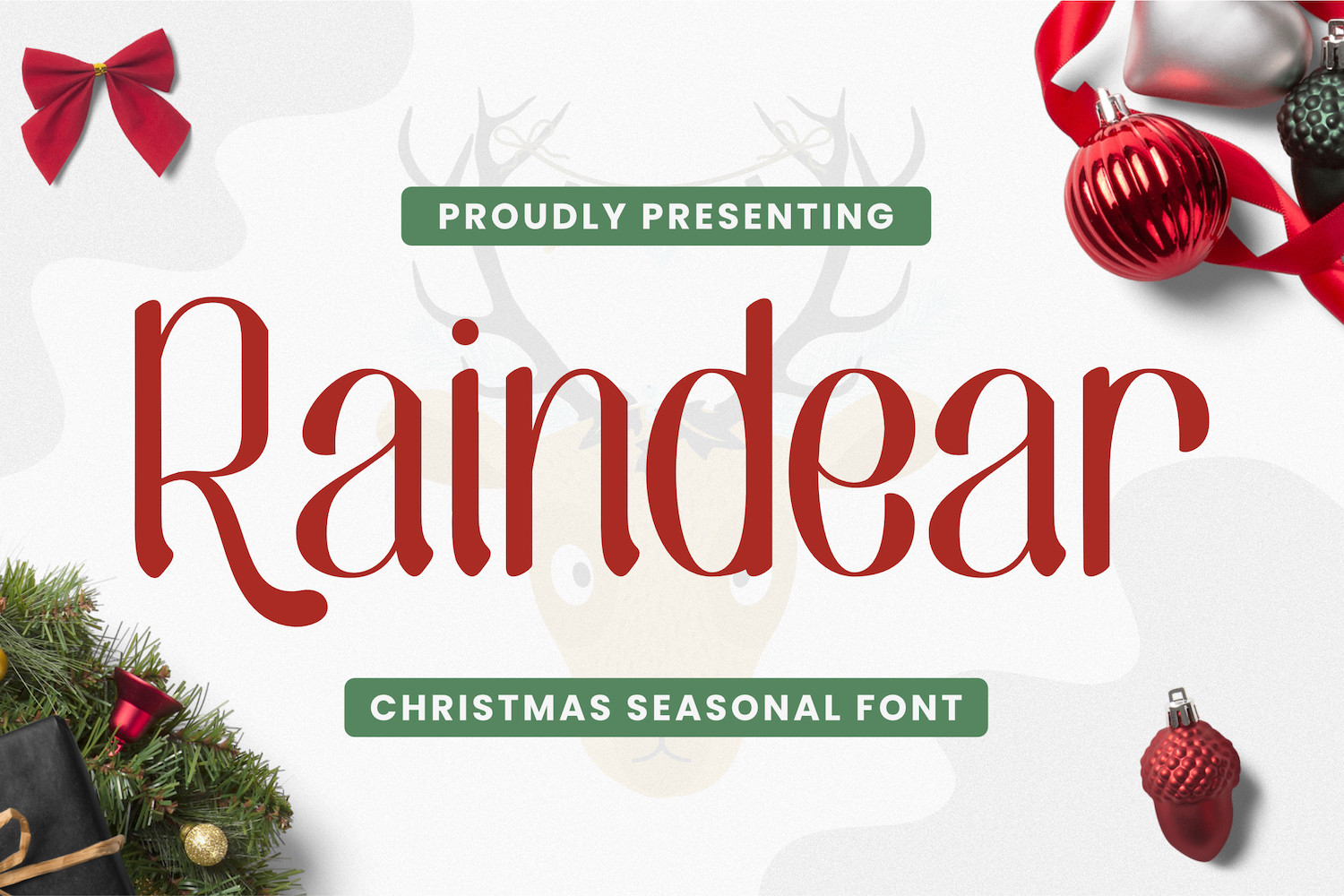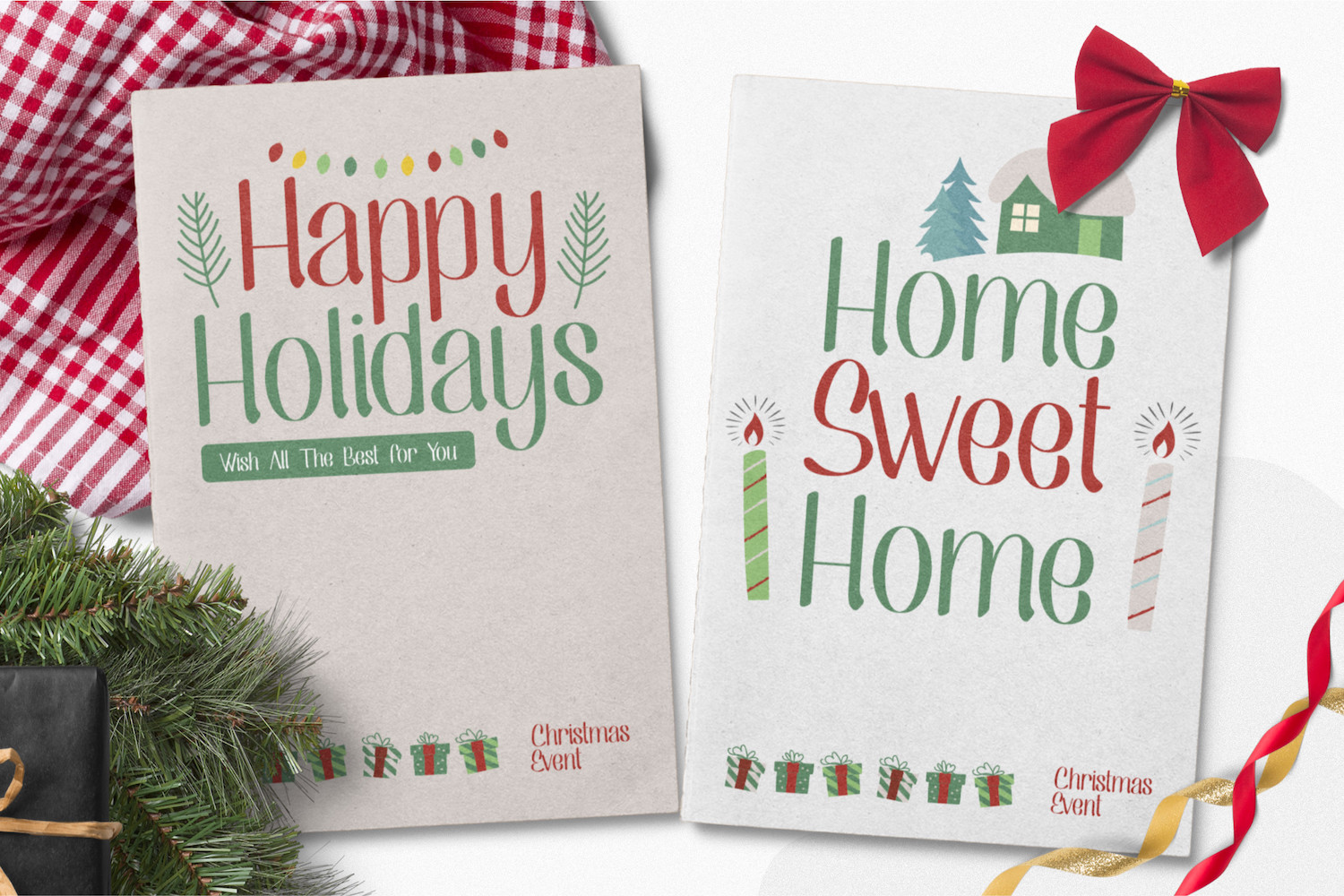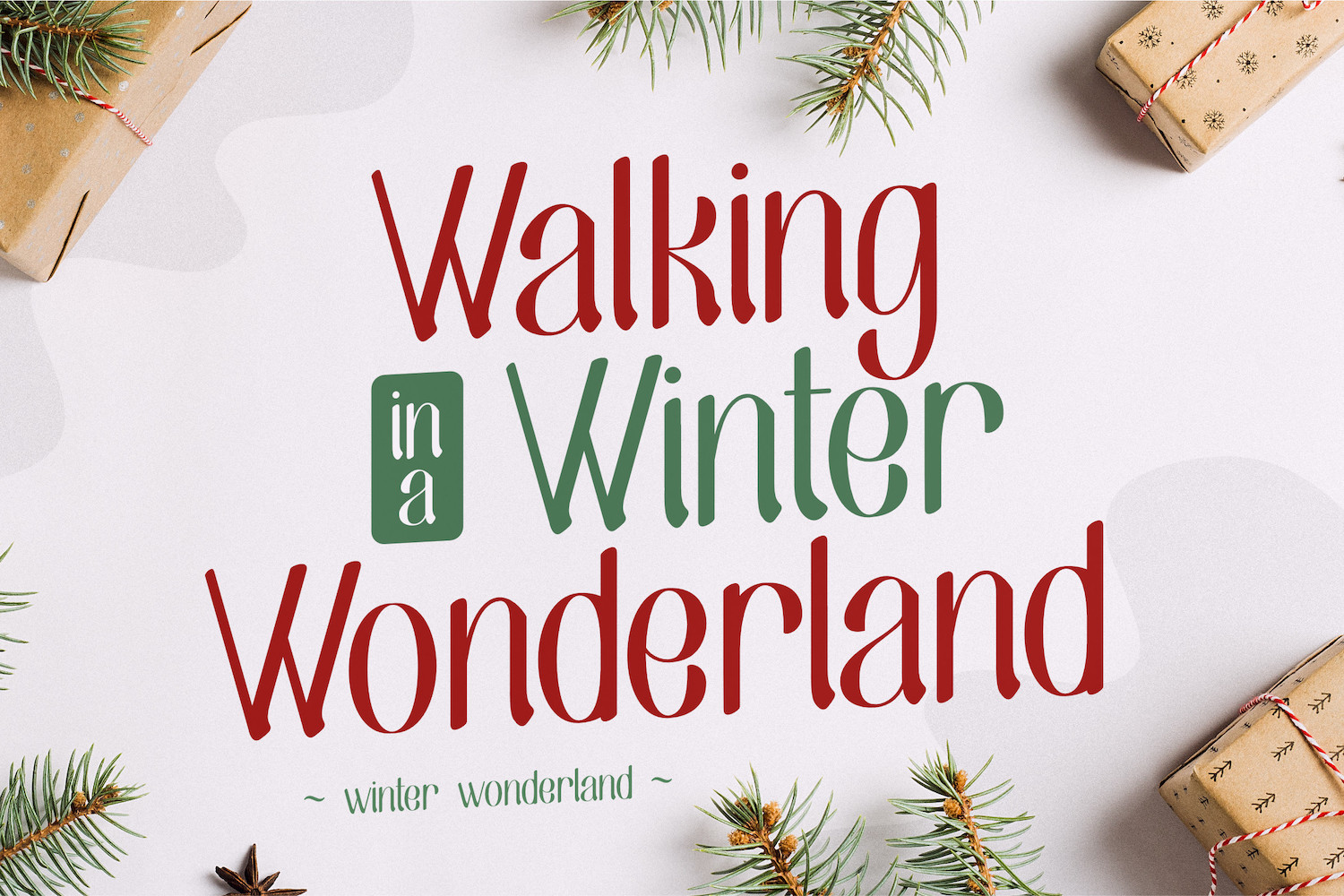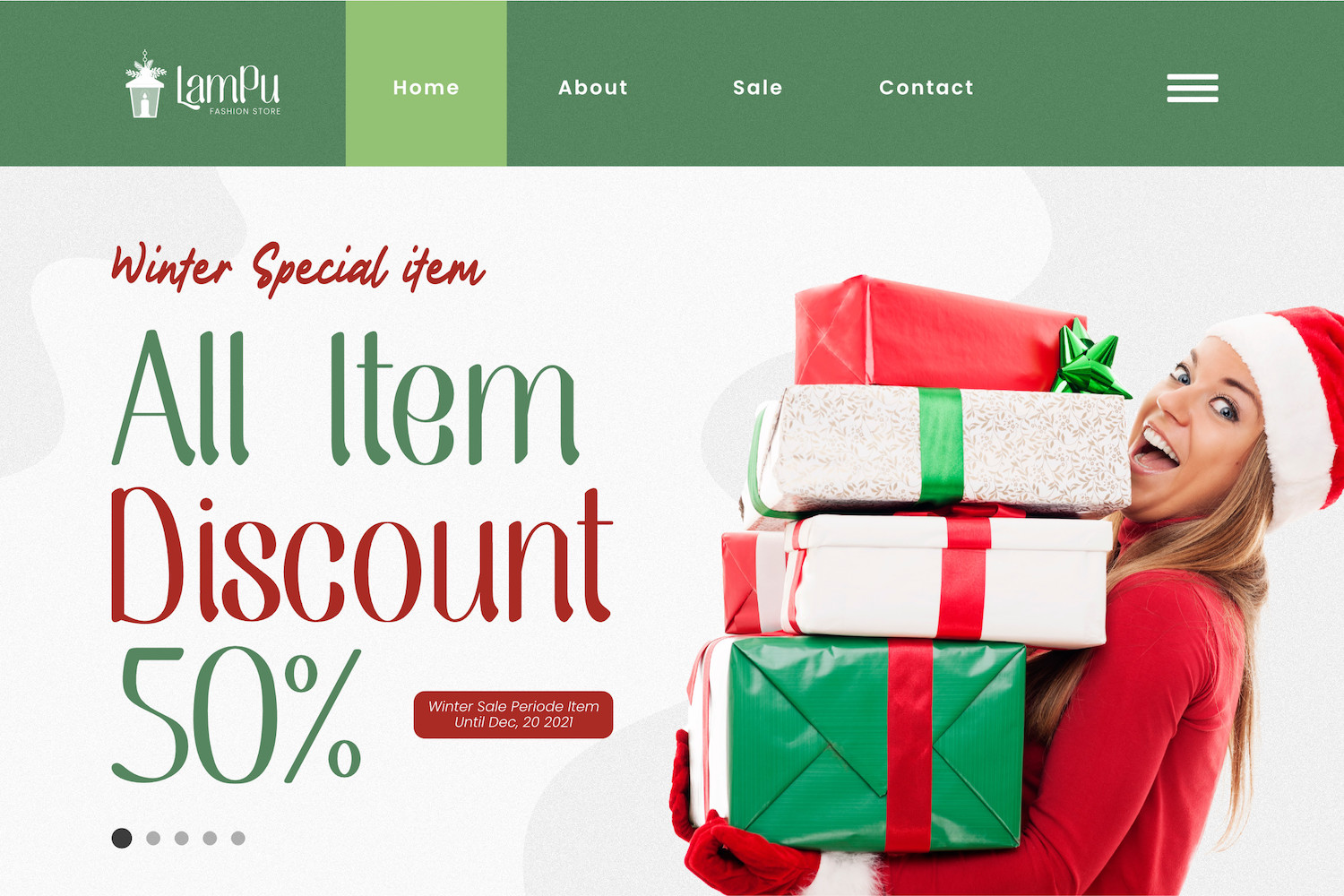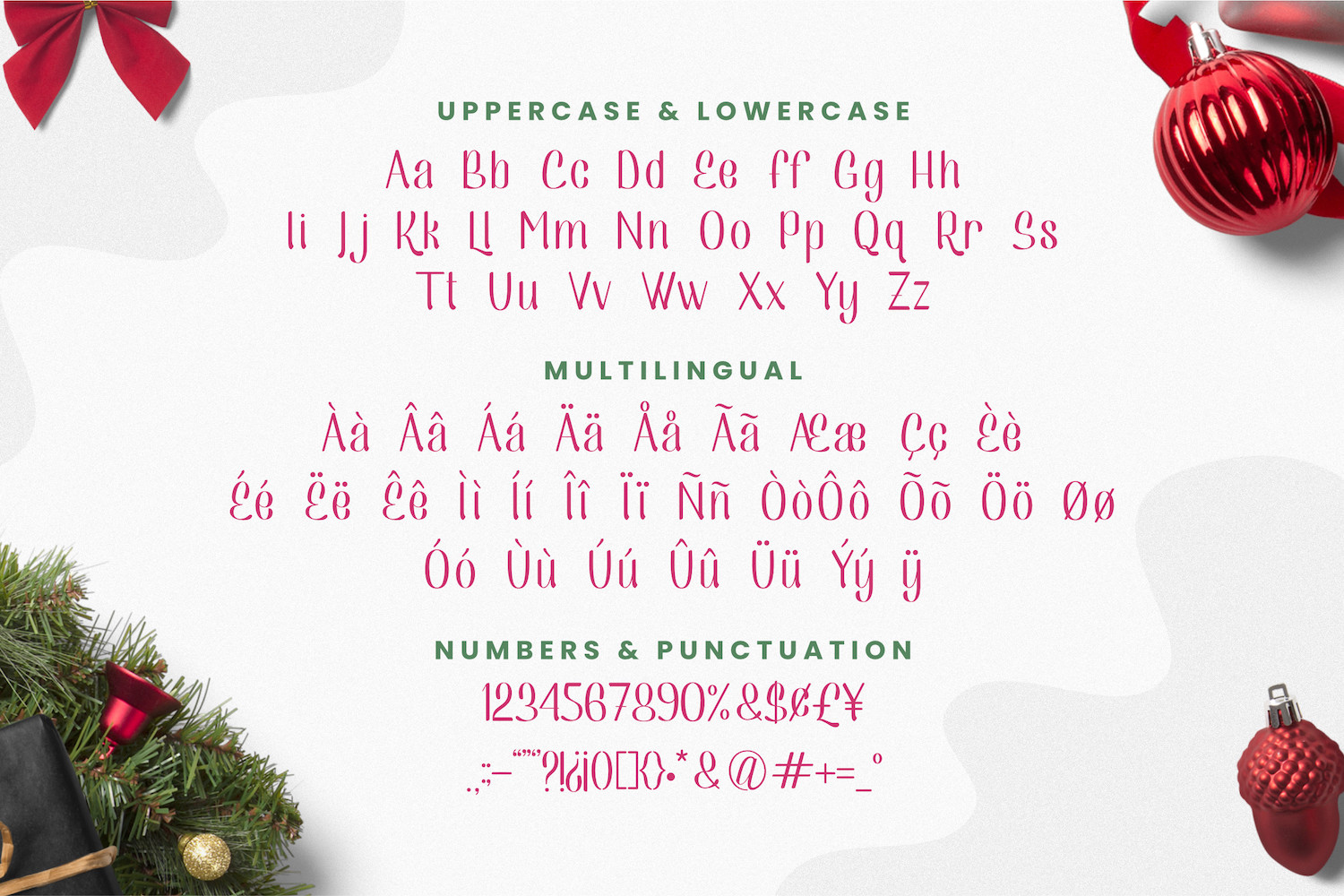
Raindear is a stylish and festive serif font designed to bring the joyful warmth of the holiday season into your creative projects. With its elegant curves and playful touches, Raindear strikes the perfect balance between classic charm and modern whimsy. Ideal for Christmas cards, social media posts, product packaging, and winter-themed promotions. The font’s distinctive letterforms make your message stand out while still feeling cozy and approachable.
This Christmas seasonal font includes uppercase and lowercase characters, numbers, punctuation, and multilingual support, making it a versatile choice for global branding or gifting. Whether you’re creating greeting cards, holiday merchandise, or online banners, Raindear adds a touch of festive elegance that turns any design into a holiday celebration.
Raindear